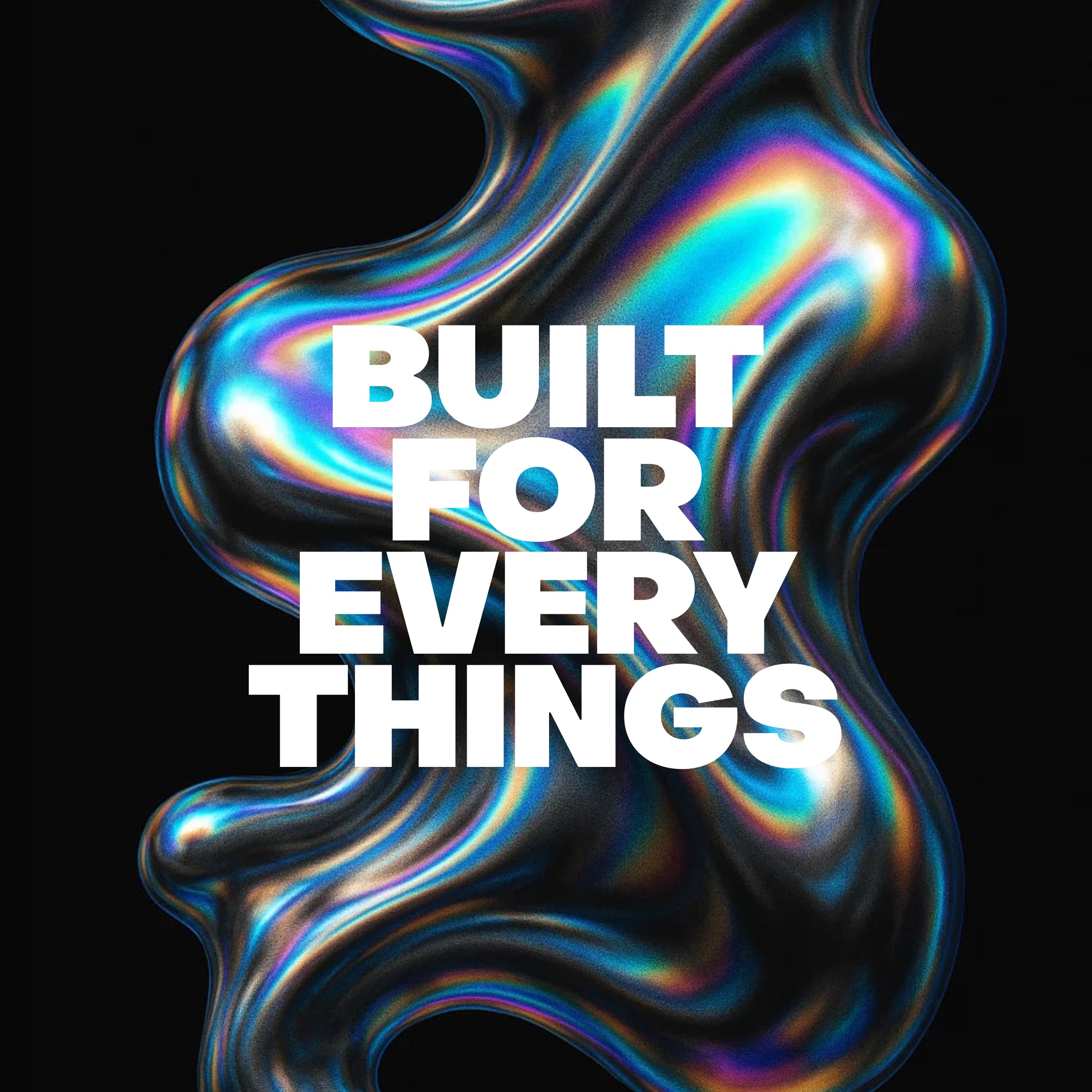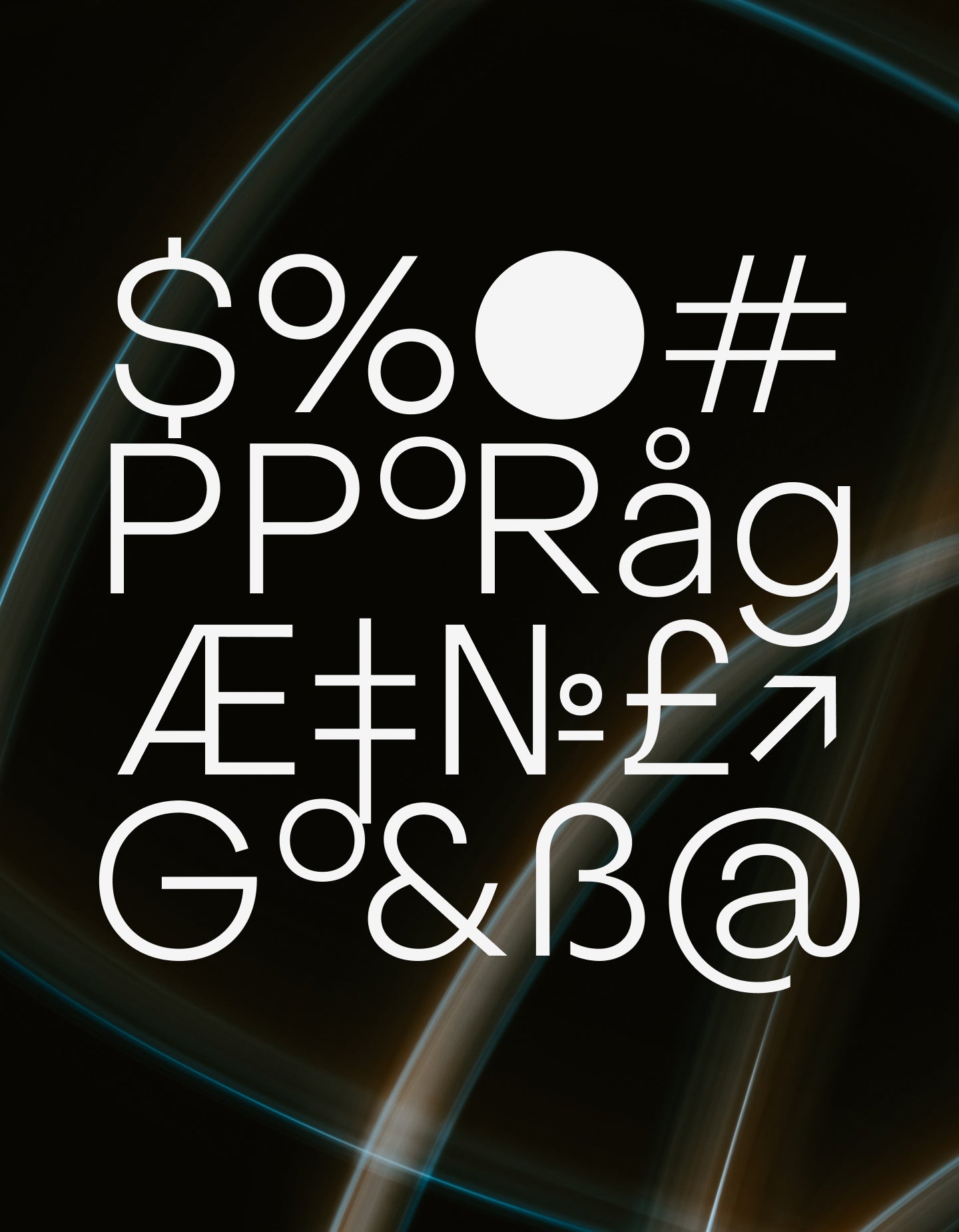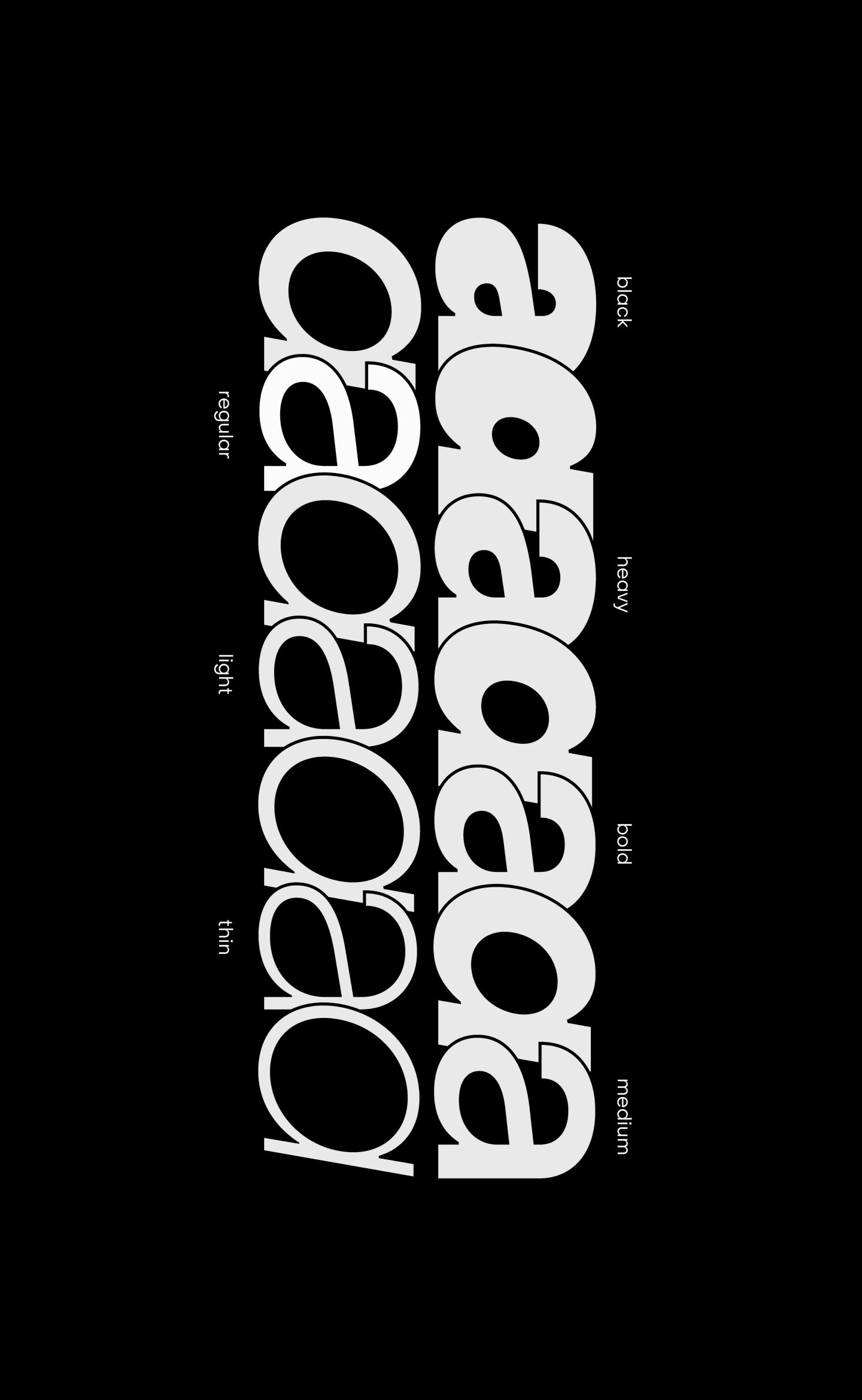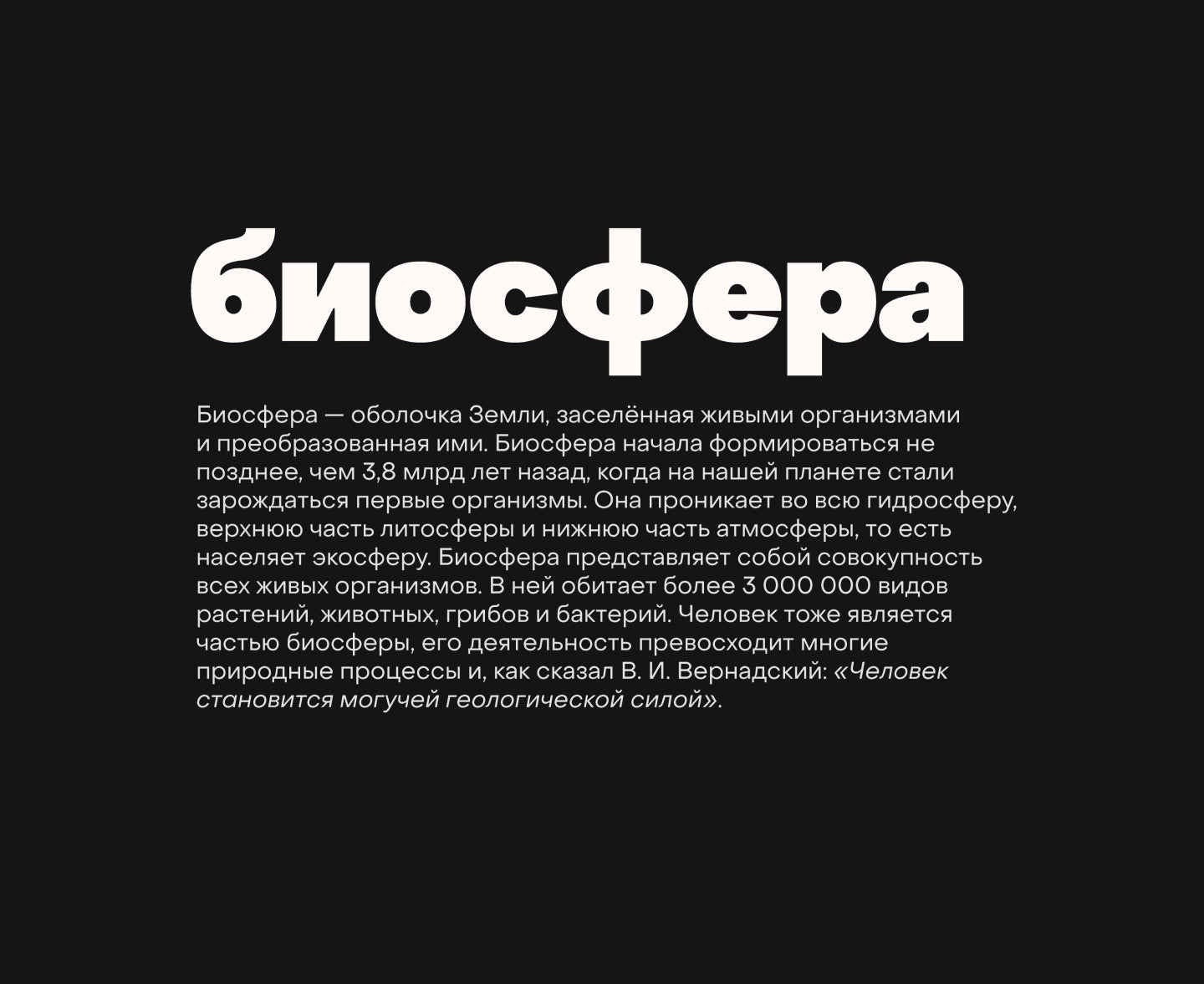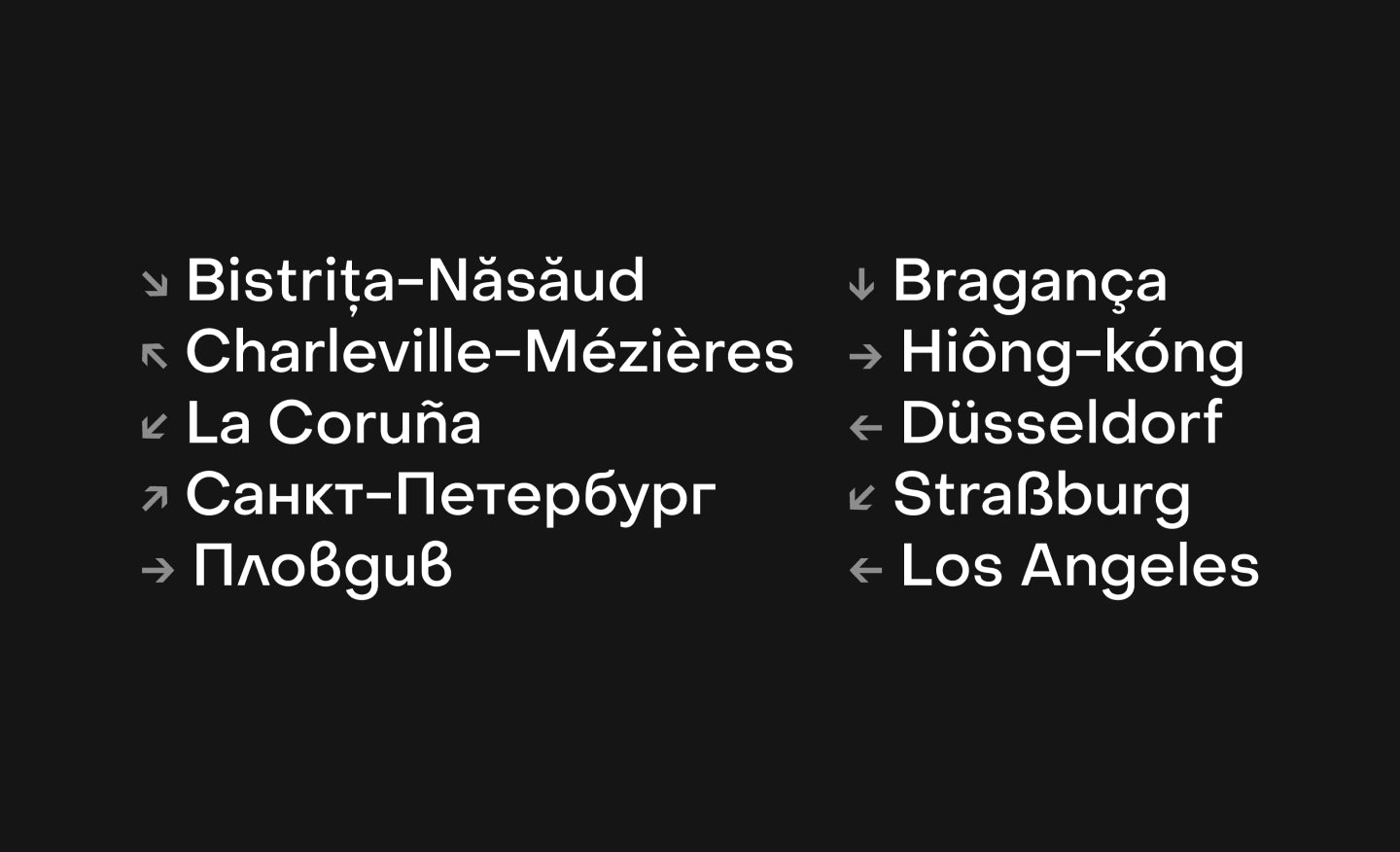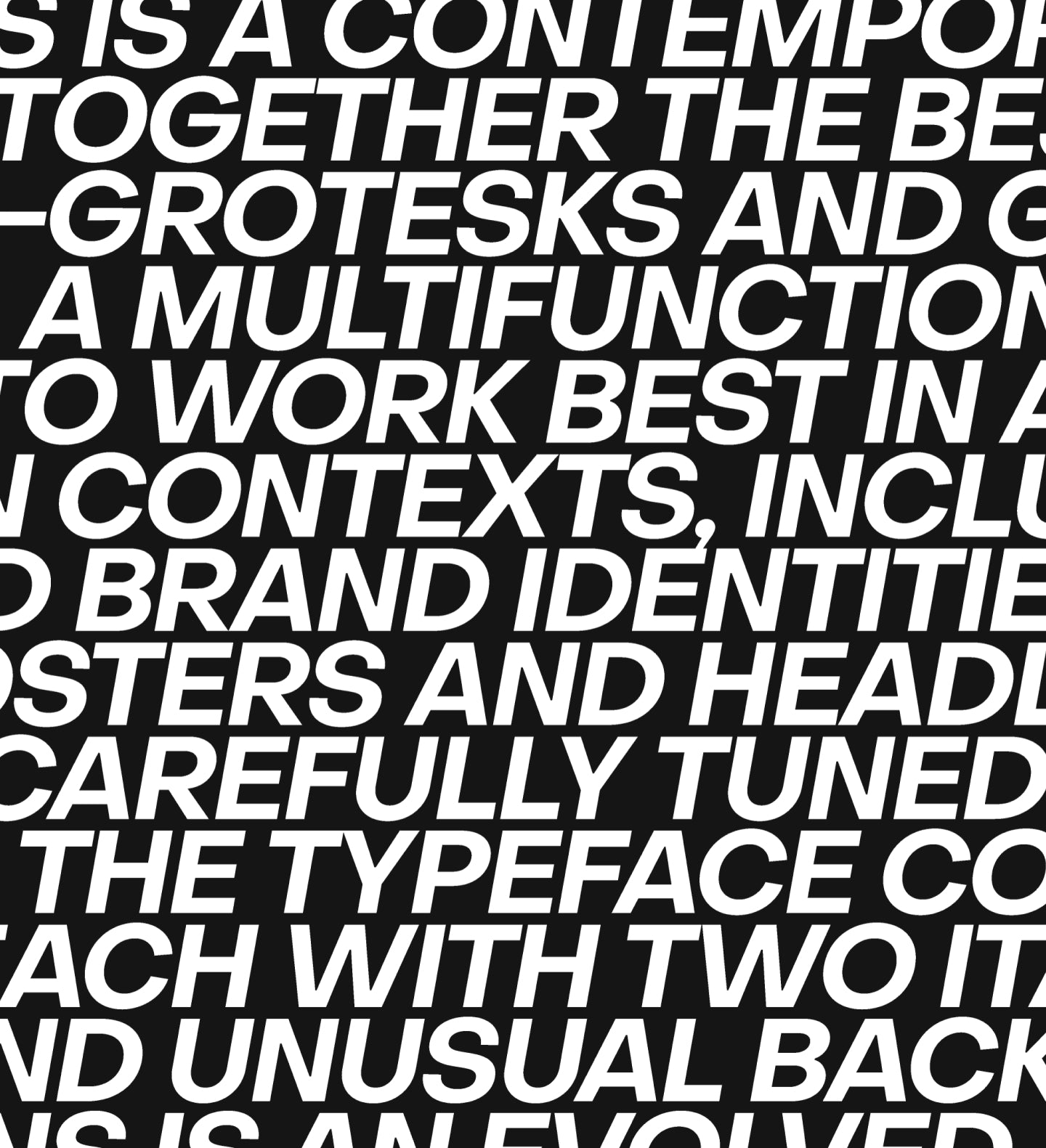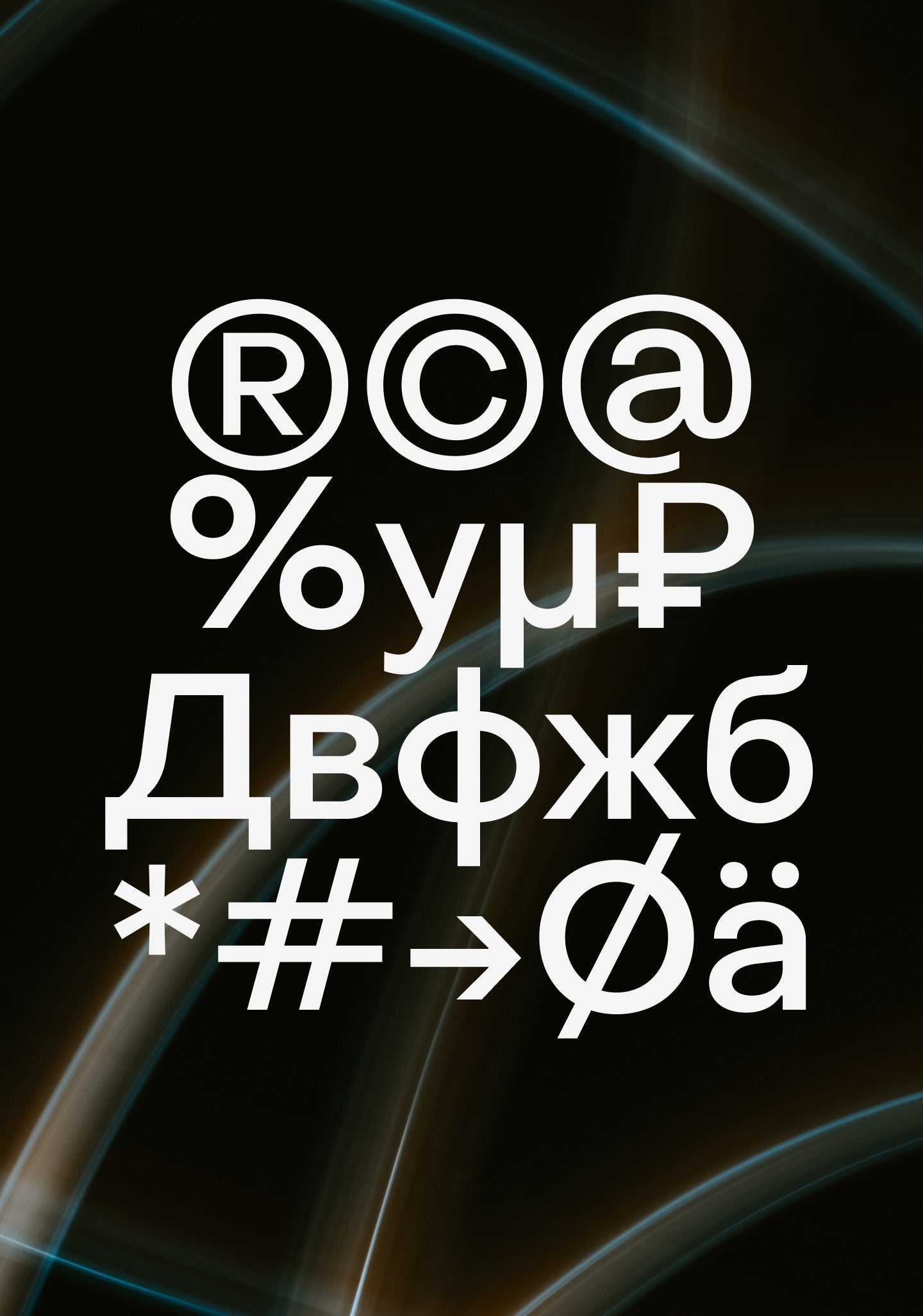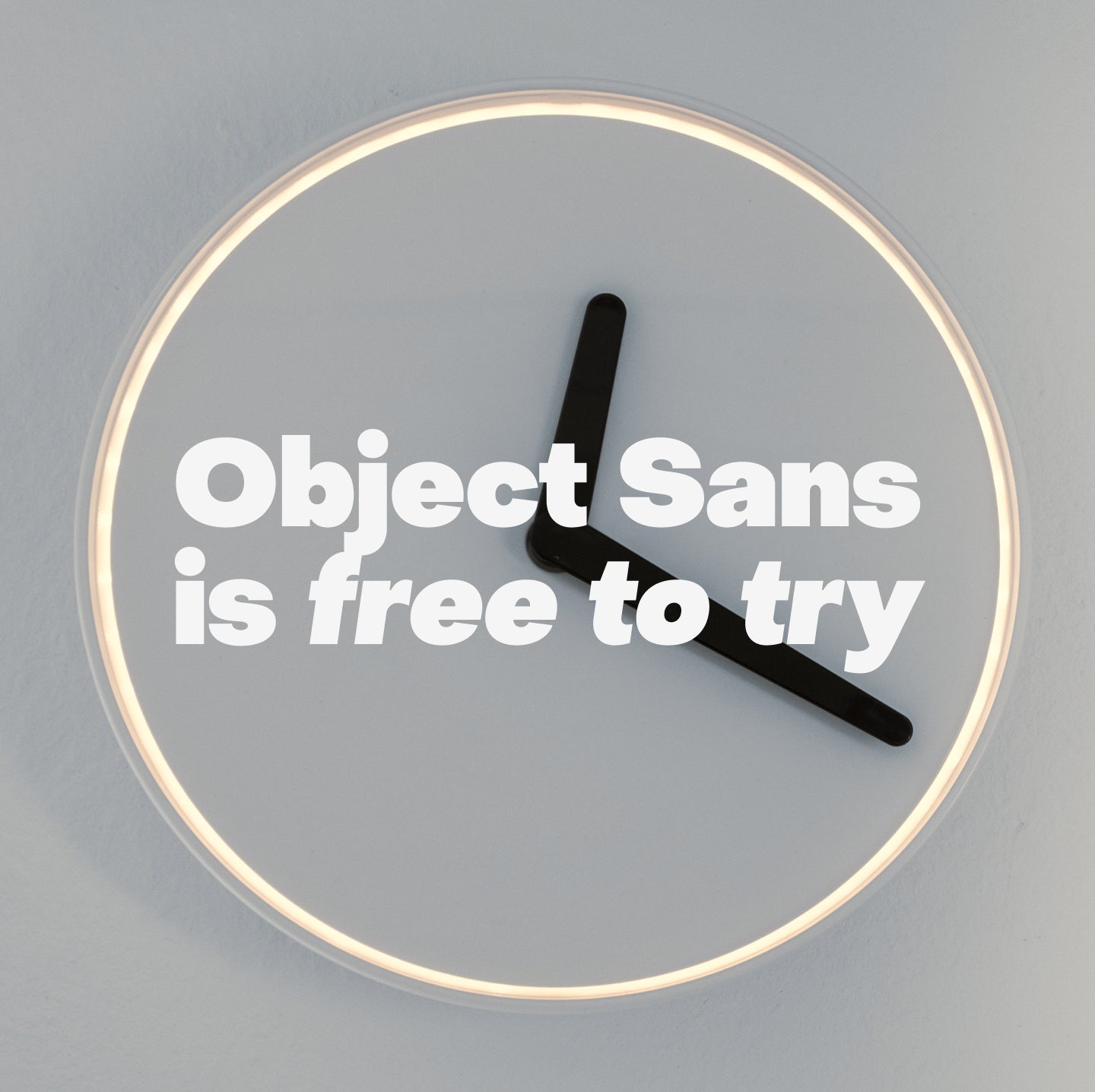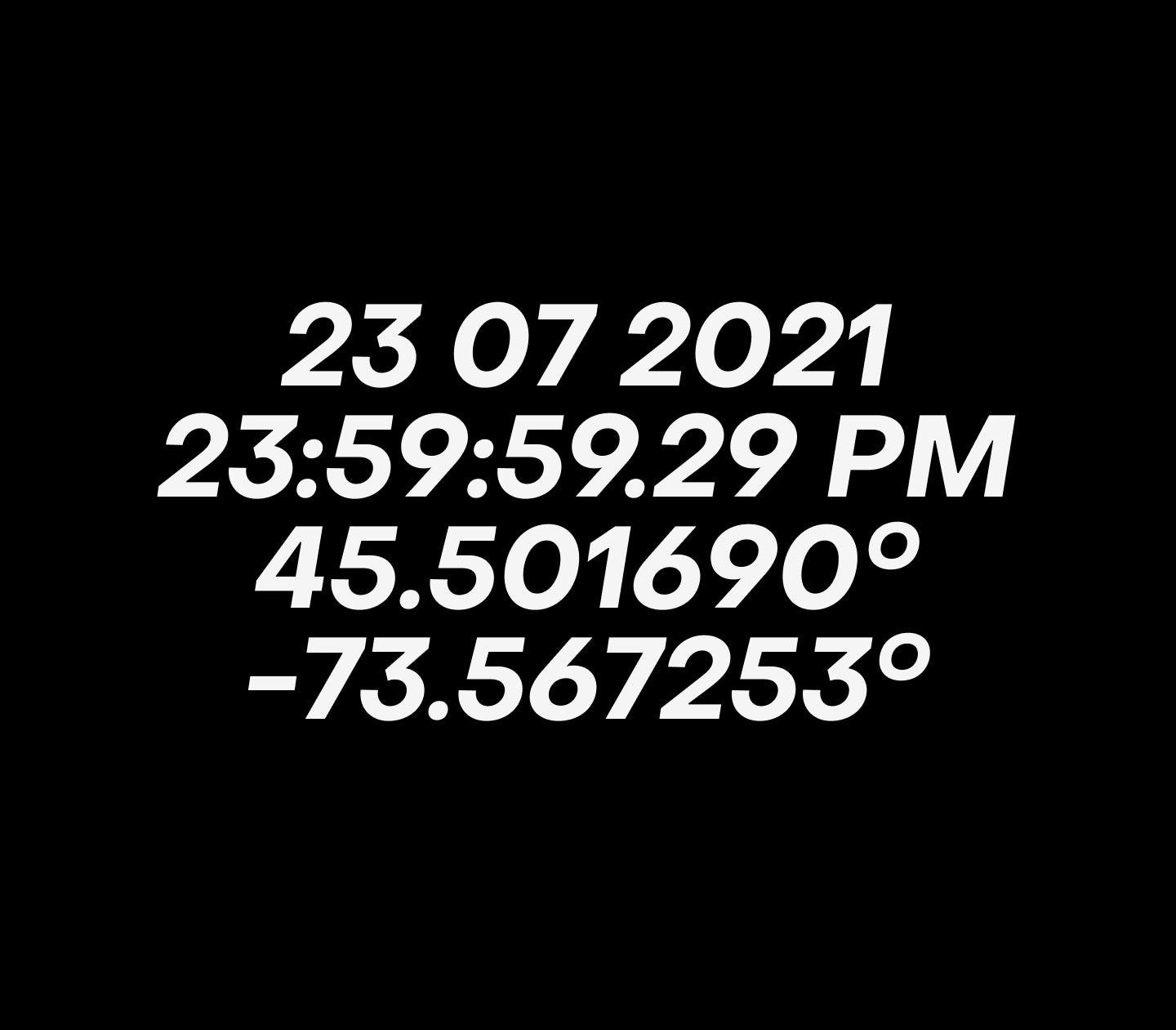
Object Sans
Built for everything, styled for anything—this is your everyday essential, made exceptional.
Object Sans
Object Sans's Features
Smart. Clean. Universal.
Object Sans is a contemporary type family that puts together the best qualities of Swiss neo-grotesks and geometric fonts. It’s a multifunctional workhorse designed to work best in → any printed and on-screen contexts, including logo design, brand identities, websites, packaging, posters and headlines; regular weight is carefully tuned for small sized body text.
16 Styles with 347 Glyphs each
Including Italics and Cyrillic Support